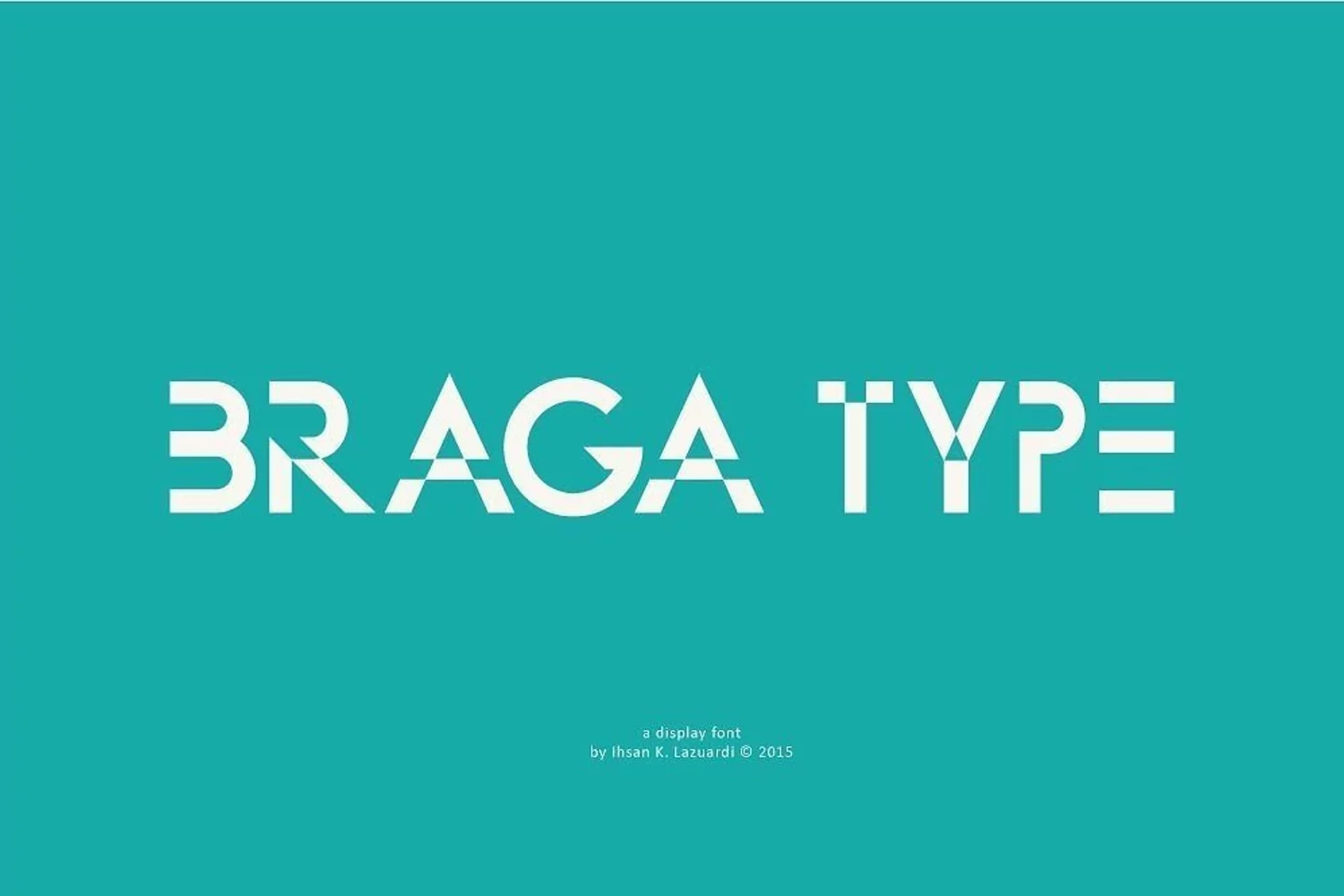
Braga is a modern display typeface. It's unique style makes it perfect for all type of branding and display work. This font is particularly suited towards corporate projects and designs.